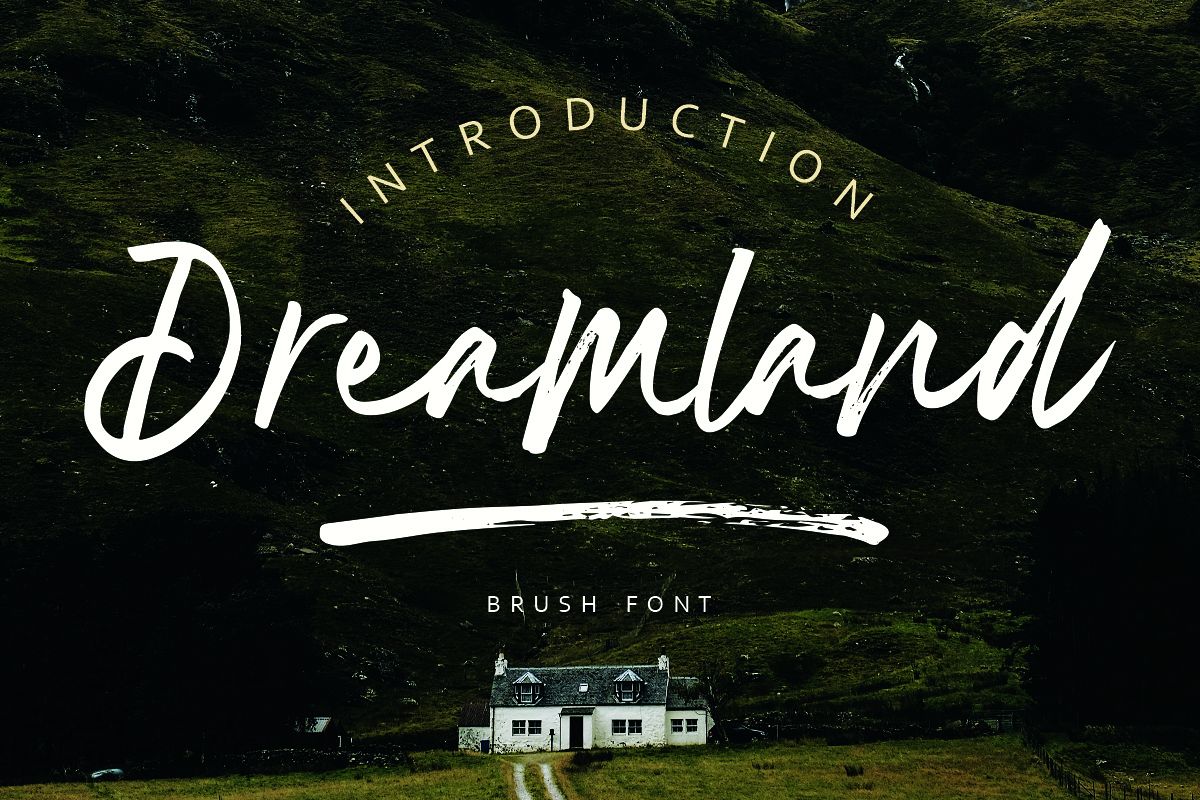
Dreamland | Brush Font
Introducing Dreamland is a paper that is made directly by hand, Dreamland is designed to be combined perfectly and allows you to make writing like your own handwriting.WHAT'S ENTERED:Dreamland Comes with uppercase characters, basic punctuation, numbers,There are OTF Files and OTF SwashNeed to test words in this font? Just type into the box below, and you will see the results of this fontIf you have questions, you can contact me through a private message. Thank you for viewing.